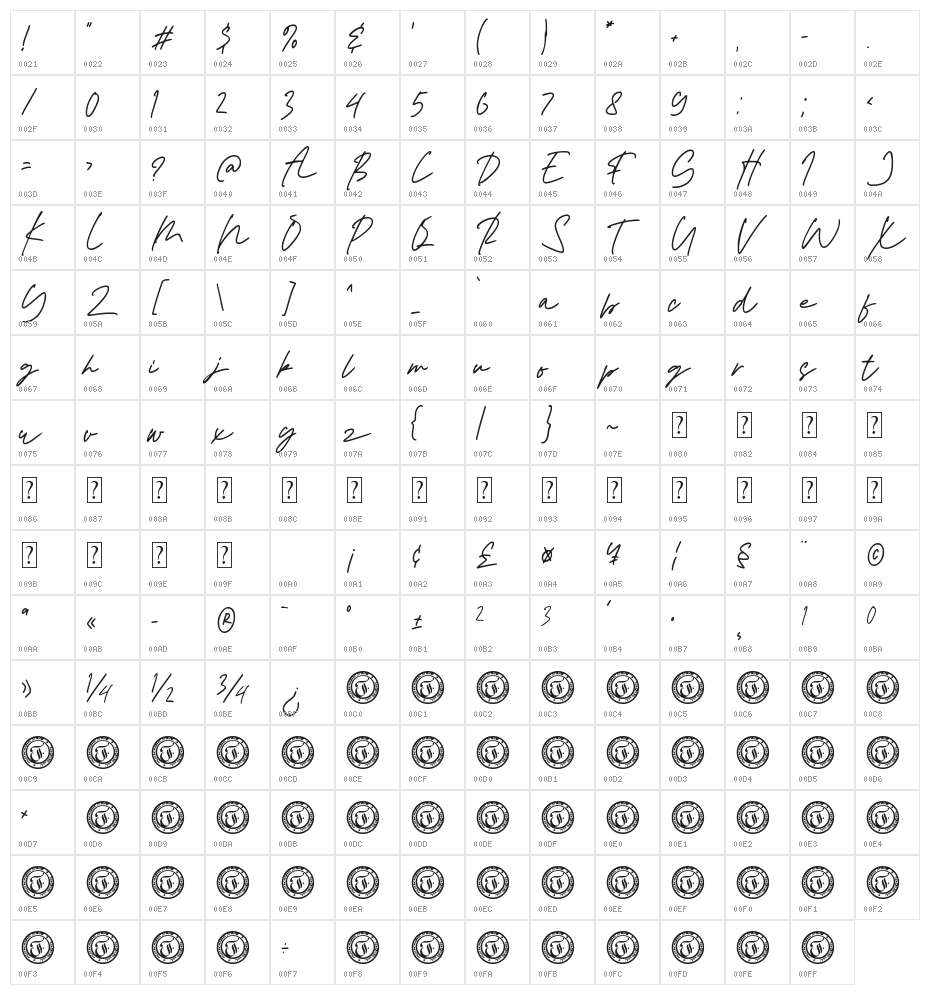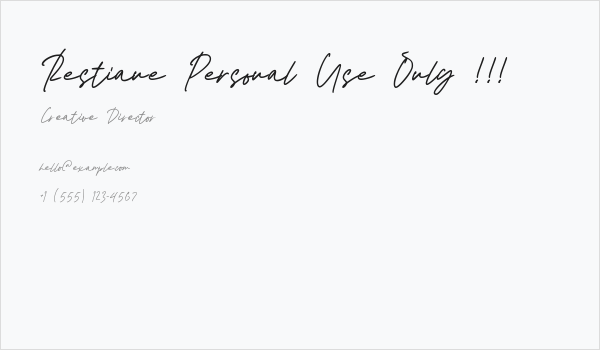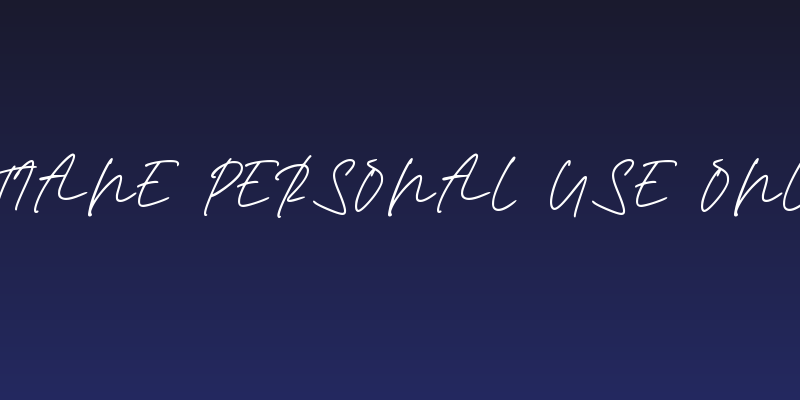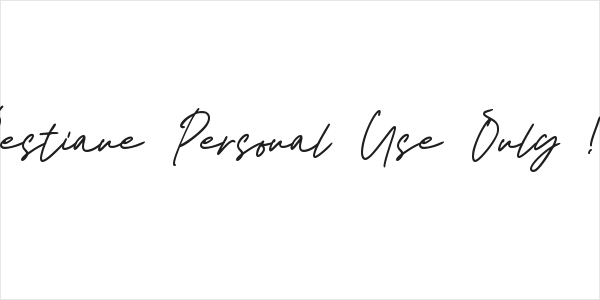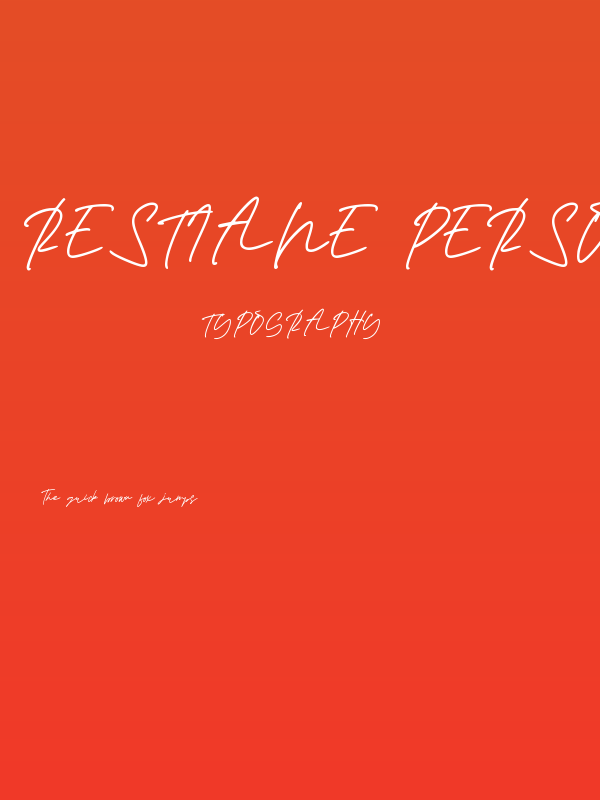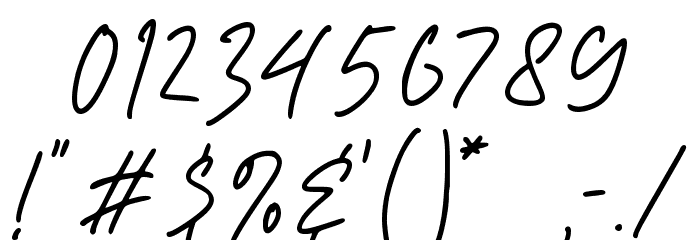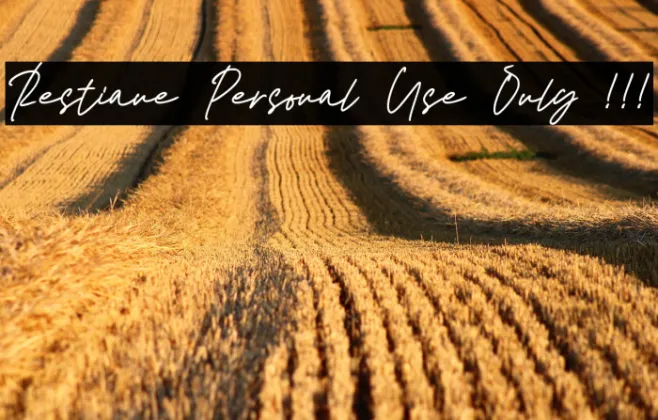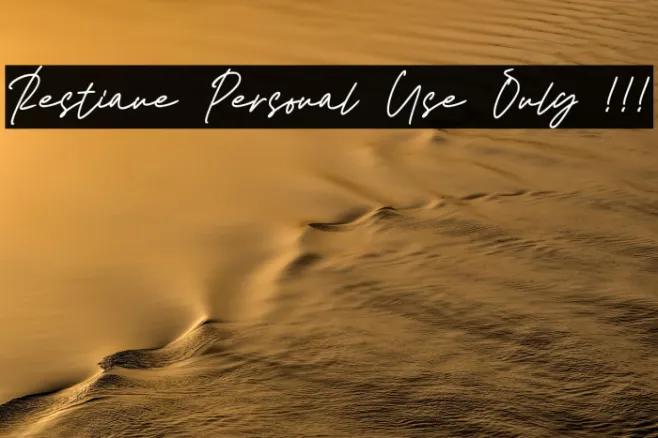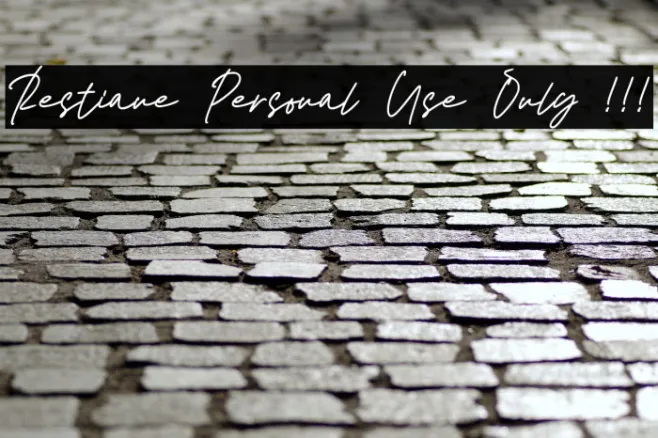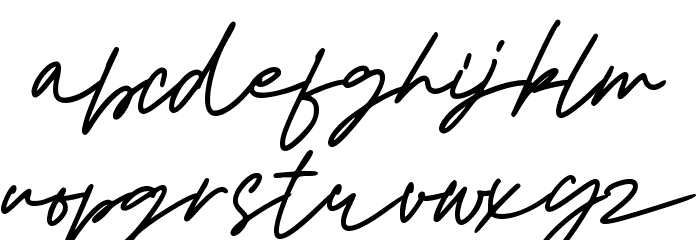
Restiane Personal Use Only !!! Font
Restiane Personal Use Only !!! Description
This font features a flowing, cursive style that mimics natural handwriting. The letters are connected, creating a seamless and elegant appearance. The uppercase letters are slightly larger and more pronounced, while the lowercase letters maintain a consistent flow. The numbers and special characters are designed to match the cursive style, adding a cohesive look to the overall font. The strokes are smooth and exhibit a medium contrast, with some variation in thickness that adds to the handwritten feel. This font is ideal for projects that require a personal touch or an artistic flair.
| Proposed Projects | Ideal for wedding invitations, personal letters, greeting cards, and artistic projects that require a handwritten touch. |